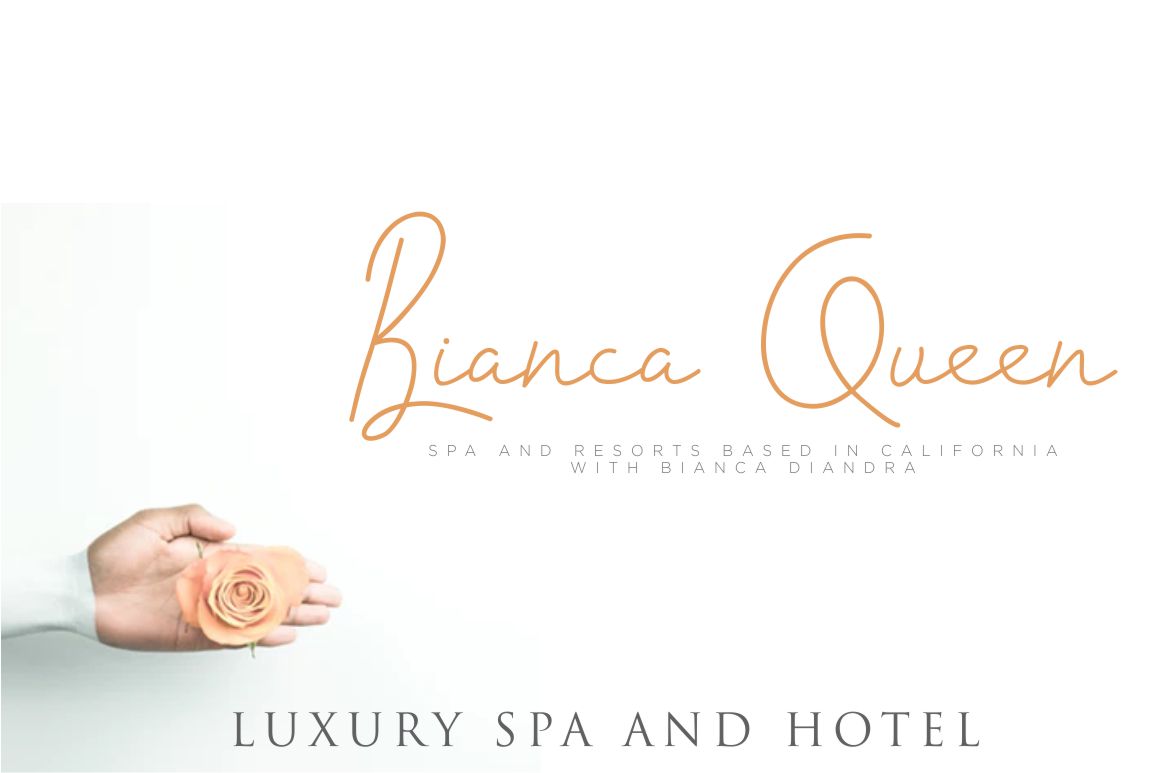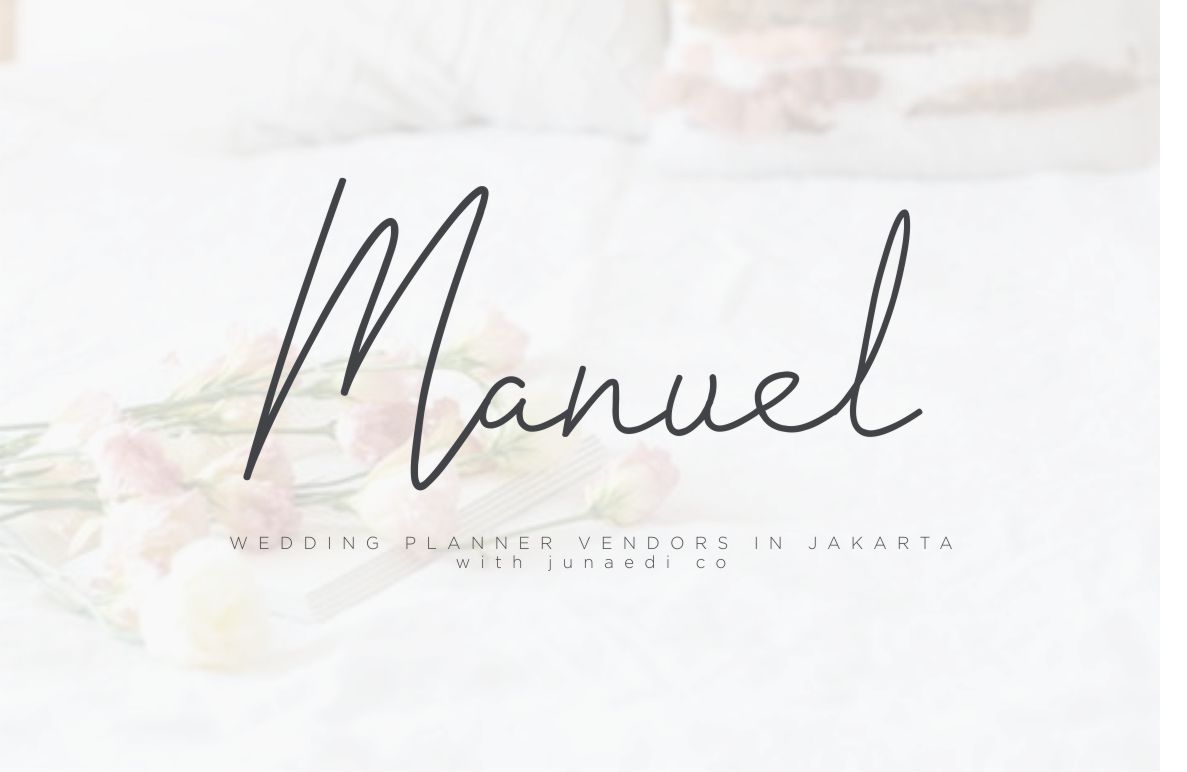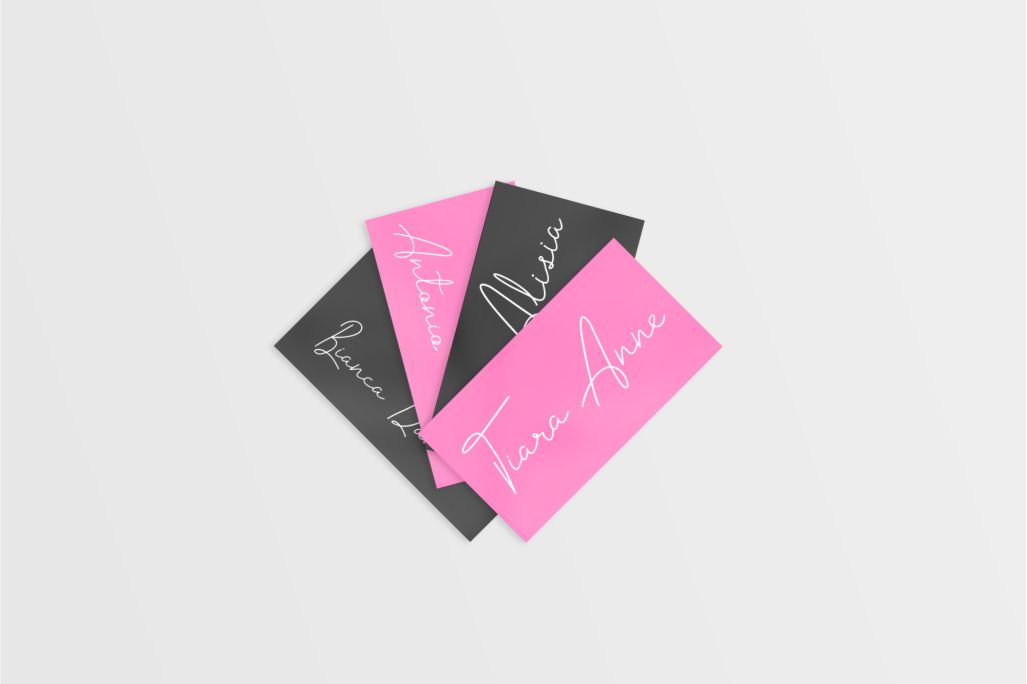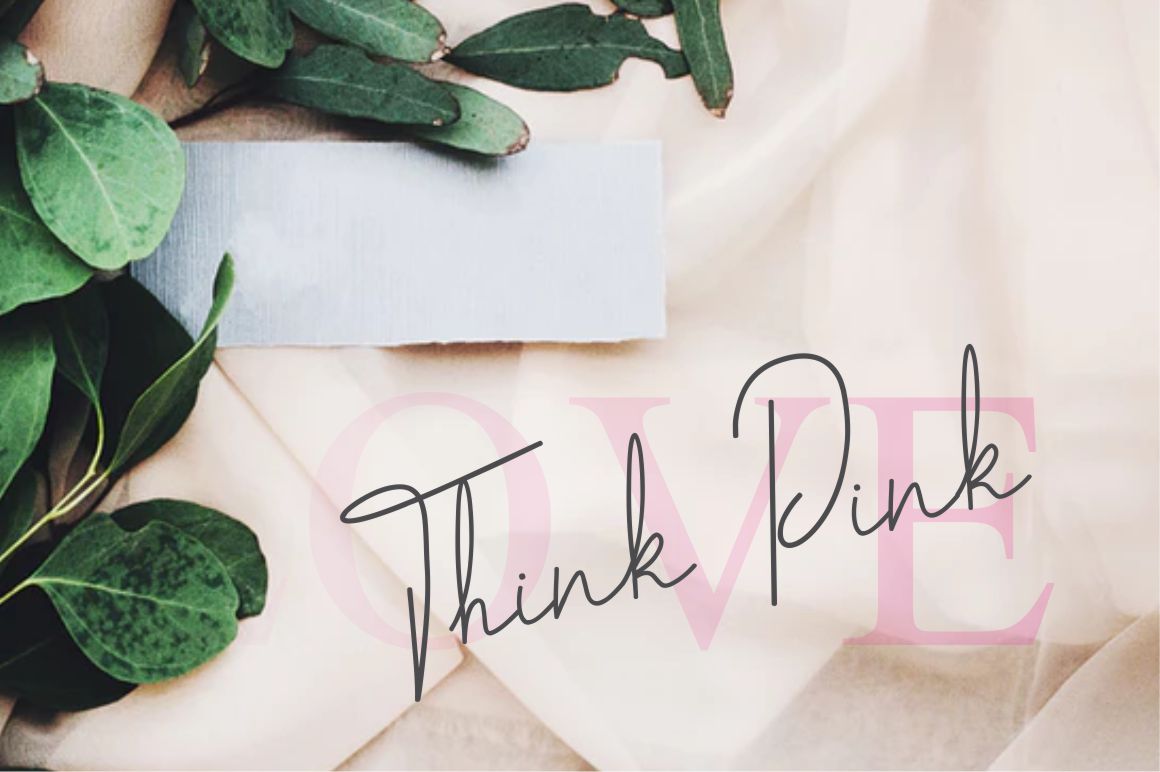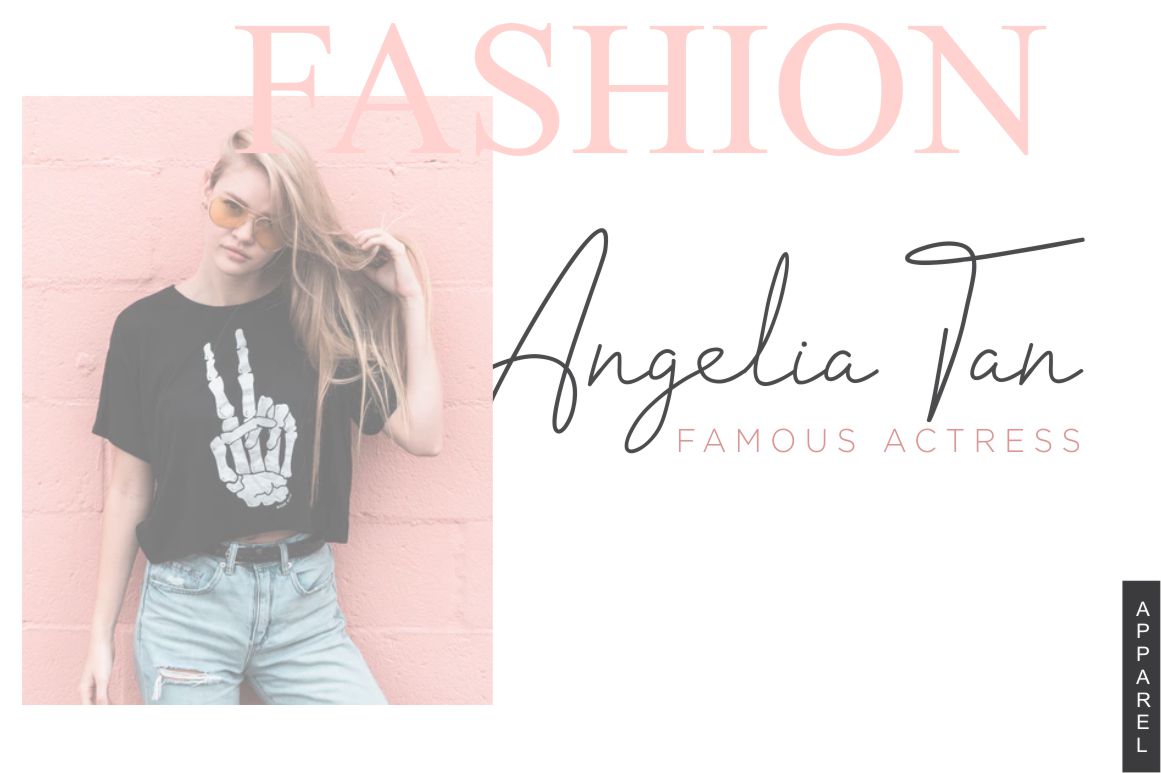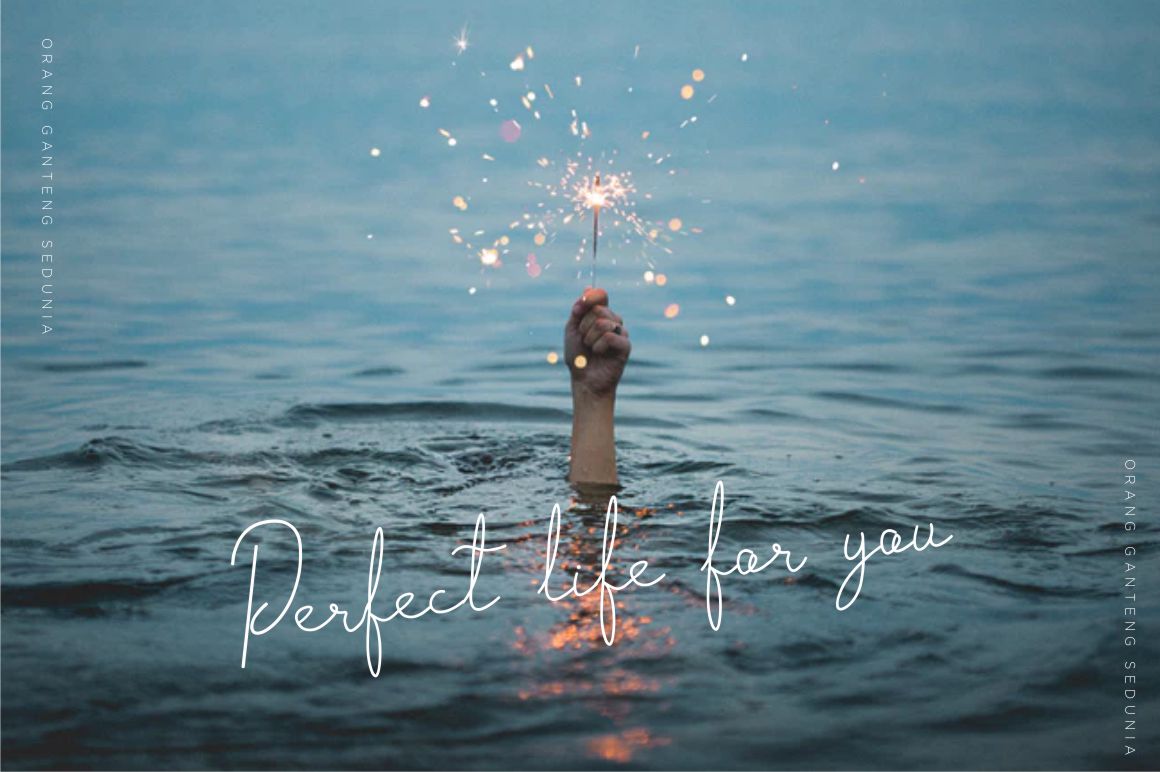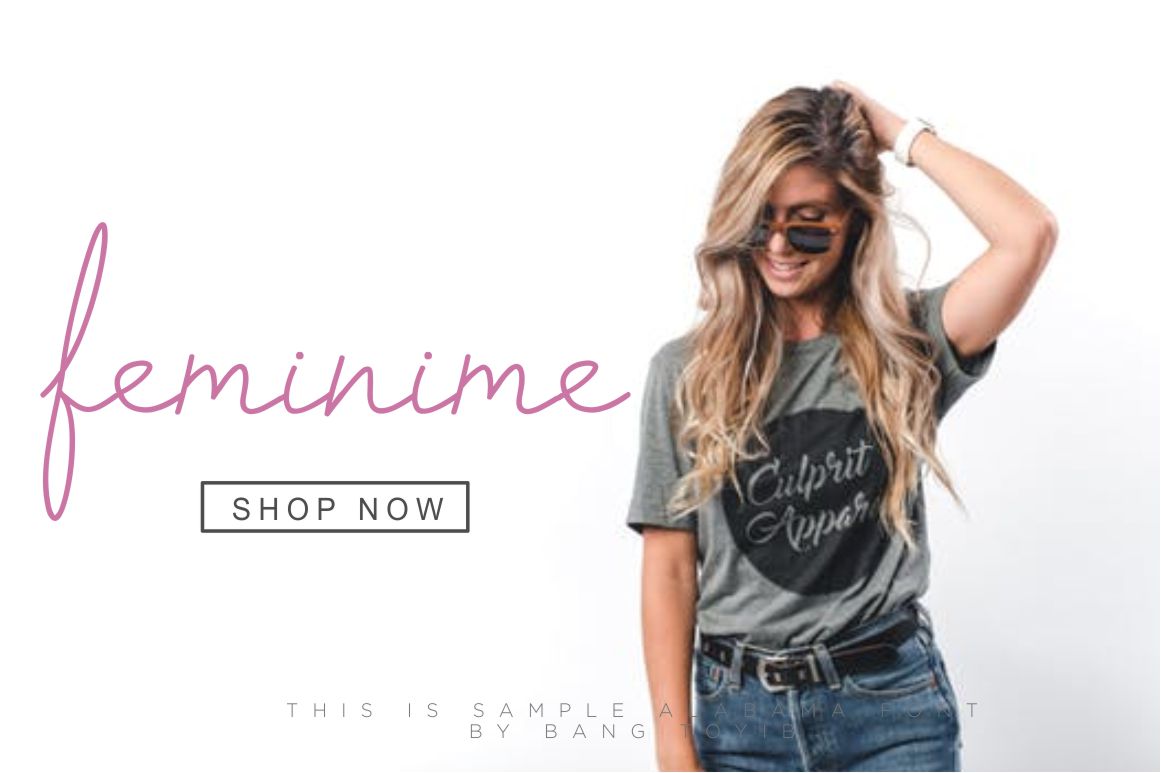
Cantilena Font
About Cantilena Font
Cantilena is a beautiful font, perfect for adding some romance and charm to your designs. This script functions at it’s best as a display or headline font.